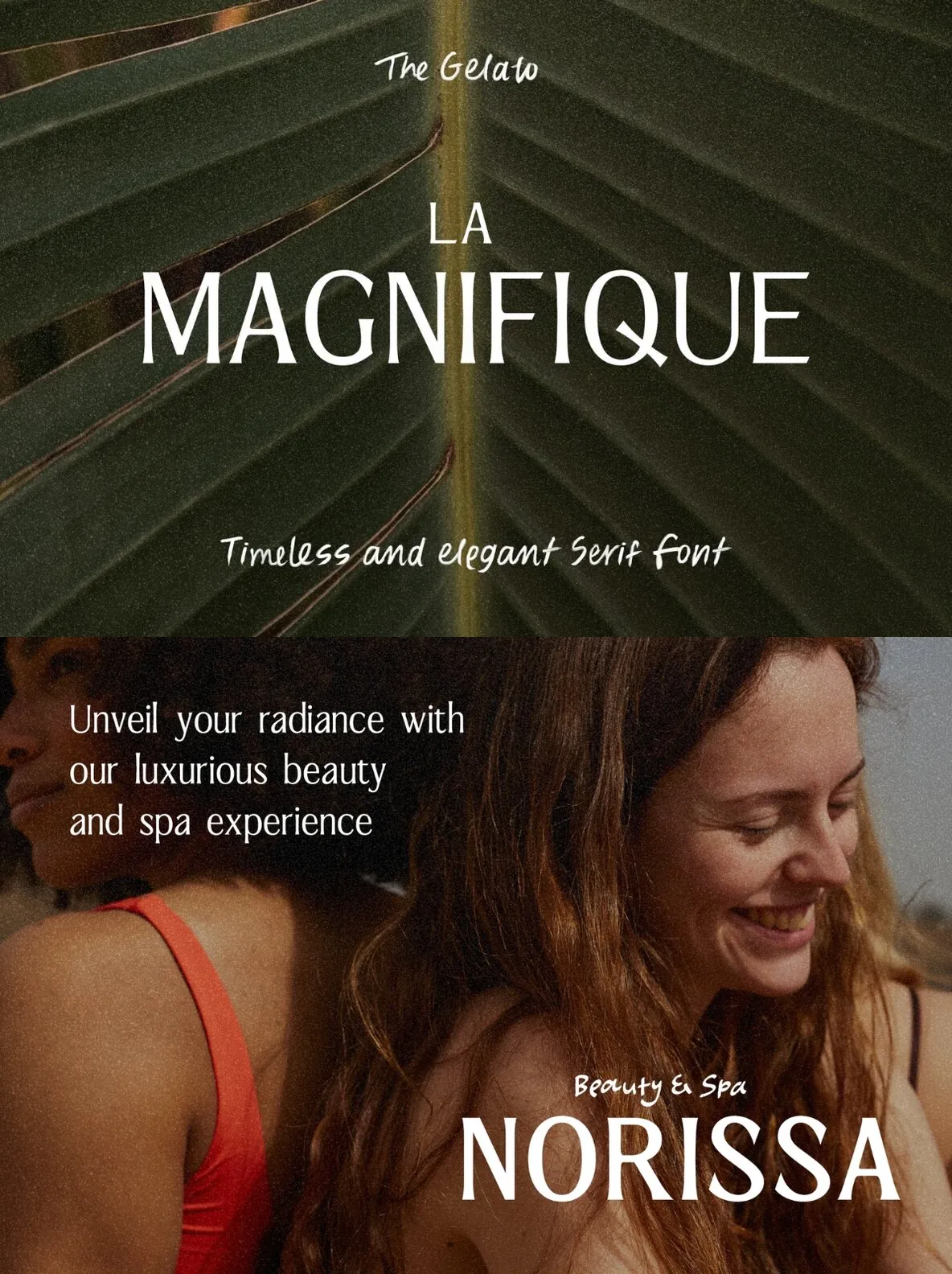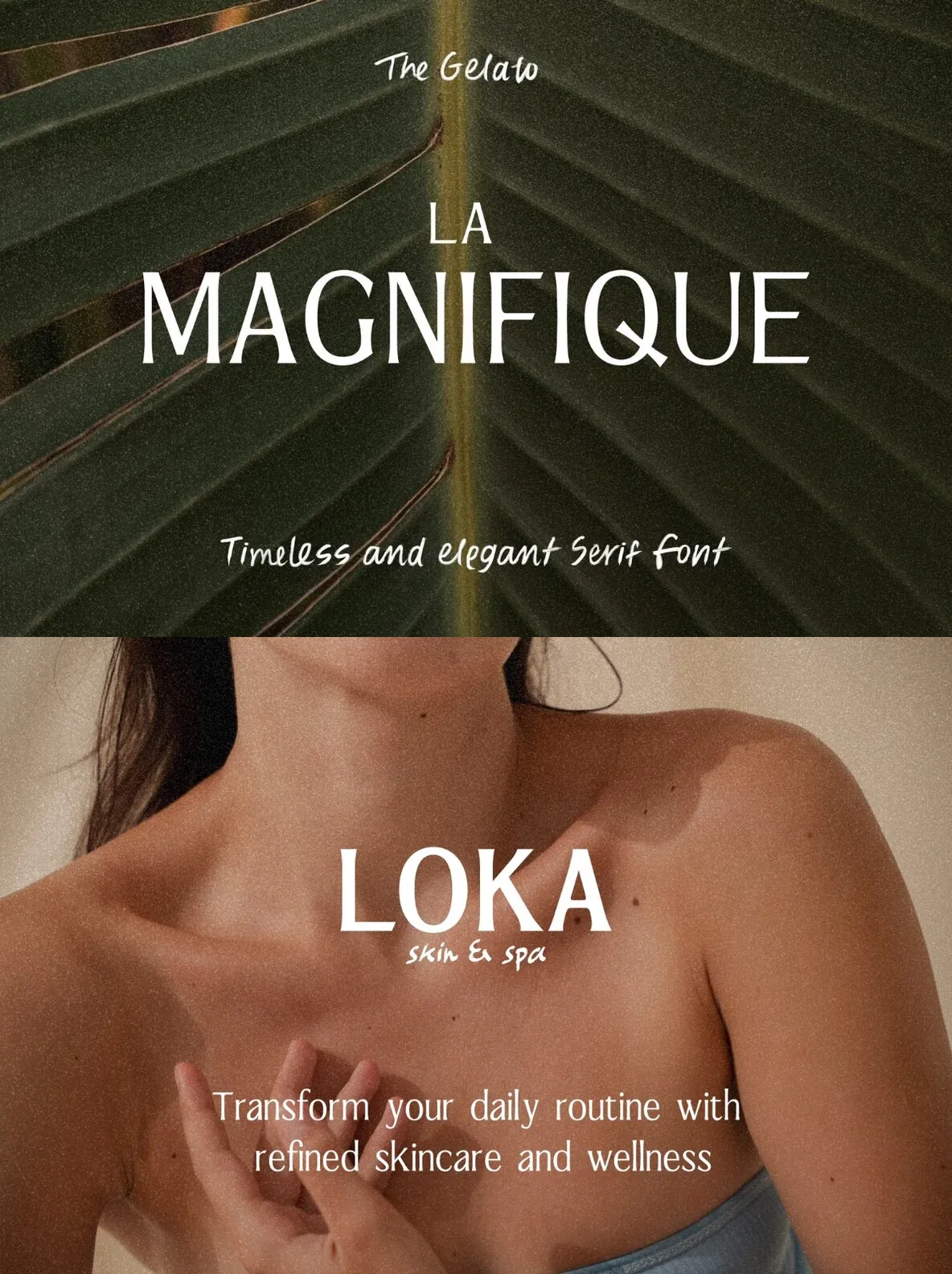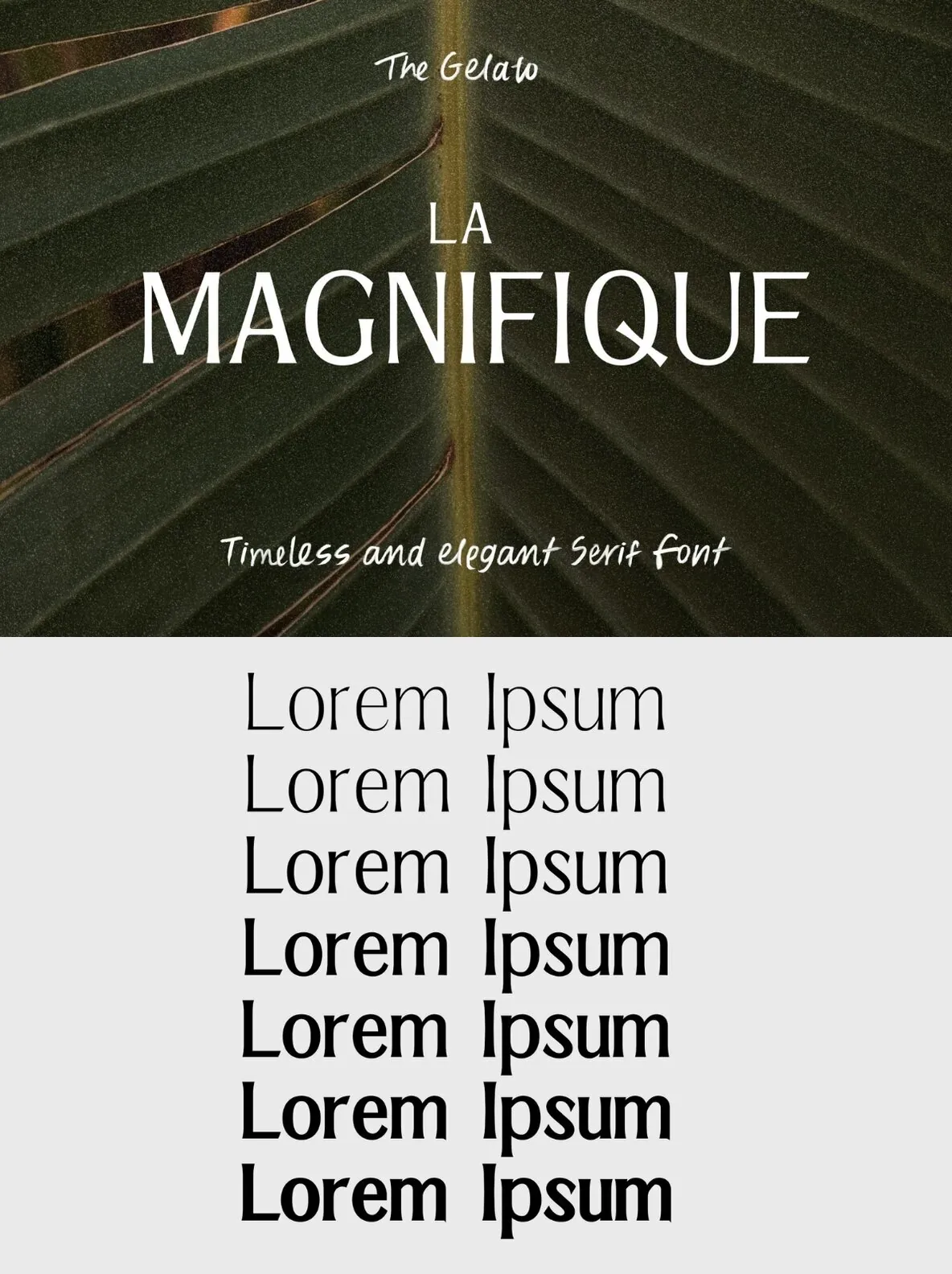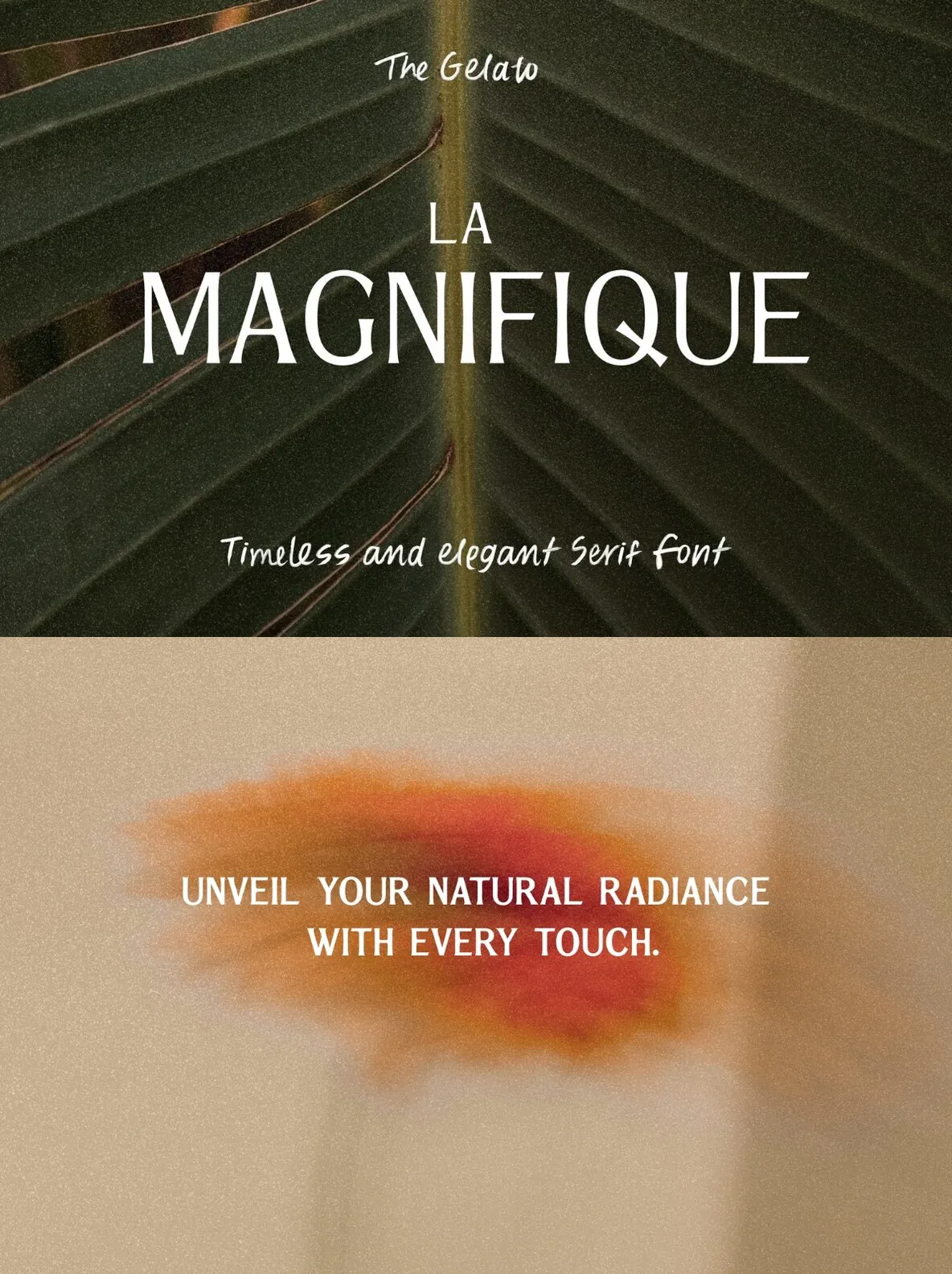
LA MAGNIFIQUE — Modern Luxury, Classic Poise
LA MAGNIFIQUE is a timelessly elegant serif font made for modern sophistication. It balances clean lines with graceful curves, giving your typography a refined, luxury finish that reads beautifully across print and digital work. Use it when you want a confident, high-end tone without losing clarity and structure.
With 7 versatile weights, LA MAGNIFIQUE fits a wide range of premium design needs. It works especially well for high-end branding, upscale marketing materials, cosmetic and spa, feminine branding, and other prestigious projects. From elegant logos to premium packaging, this serif typeface brings classic presence with a contemporary edge. The preview images are to showcase fonts only and are NOT included.